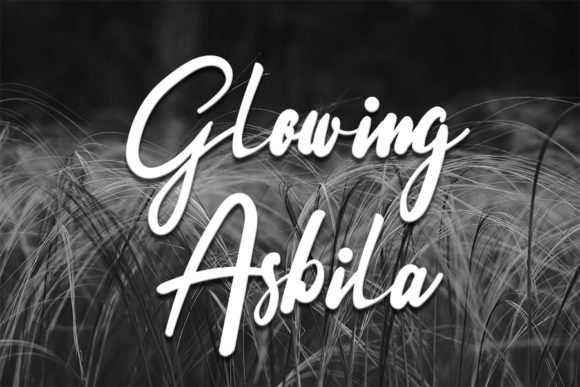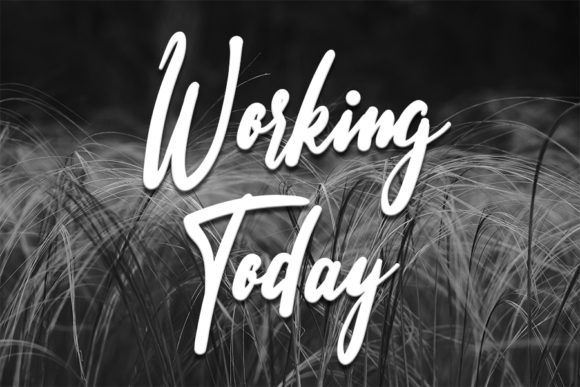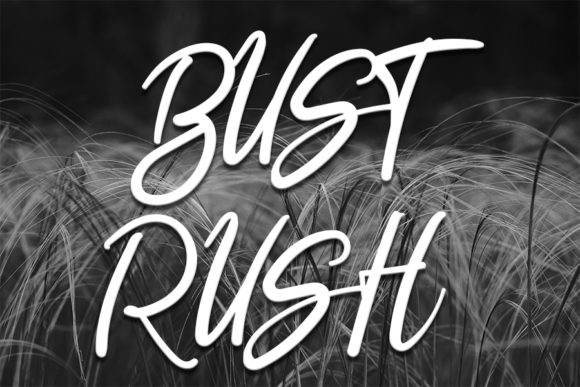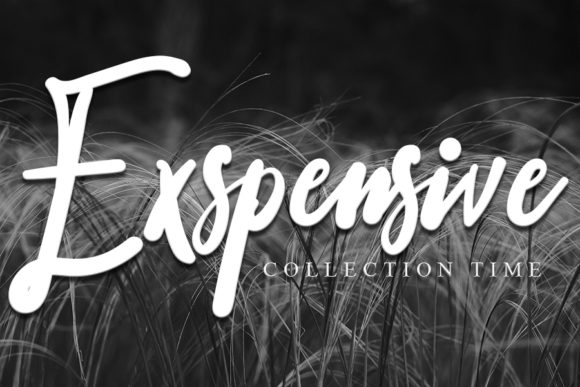
Introduction to Mode Moon Font
Have you ever been in the midst of a creative project, pouring your heart and soul into every detail, only to feel like something’s missing? The spark that drives your imagination is there, but the right design element to bring it all together is nowhere to be found? That’s where the Mode Moon Font comes in – a relaxed and flowing handwritten font that adds a touch of elegance and sophistication to your work.
This high-quality design resource is perfect for designers looking to add a personal touch to their projects. With its simple yet stylish feel, the Mode Moon Font is ideal for creating a seamless and cohesive look that’s sure to captivate your audience.
Key Features of Mode Moon Font
- Unique, high-quality design for creative projects, ideal as a design resource
- Features a transparent background, allowing for easy integration into any design
- Perfect for designers and artists working on a wide range of creative projects
- Includes multiple styles and weights, making it a versatile design resource
- Available in high-resolution, ensuring crisp and clear display on various devices
- Includes a comprehensive character set, making it suitable for a variety of languages
Honest Review: Mode Moon Font
I recently stumbled upon the Mode Moon Font while searching for a unique design resource for a creative project. The first thing that caught my eye was the sleek and modern aesthetic of the font. I was excited to see if it would live up to its promise.
- ✨ The font’s modern design makes it perfect for a wide range of creative projects, from graphic design to digital art.
- ⚠️ The font may not be suitable for projects that require a more traditional or classic look.
- ⚠️ Some users may find the font’s modern style too bold or overwhelming for certain designs.
Overall, I was impressed with the Mode Moon Font. Its unique design and high-quality features make it a valuable resource for any designer. While it may not be suitable for every project, it’s definitely worth considering for creative endeavors that call for a modern touch.
Tips for Getting the Most Out of Mode Moon Font
To get the most out of Mode Moon Font, consider the following tips:
- Use the font in conjunction with other design elements to create a cohesive look.
- Experiment with different font sizes and styles to add visual interest.
Mode Moon Font can be used in a variety of creative projects, including:
- Business cards and marketing materials.
- Personalized gifts and decorations.
Alternatives to Mode Moon Font
1. Alien Galaxy Font
The Alien Galaxy Font is a unique design resource perfect for creative projects that require a celestial and mysterious vibe. It’s a free download with a transparent background, making it easy to integrate into any design. When to use: For futuristic and sci-fi themed projects, the Alien Galaxy Font is a great alternative to Mode Moon Font.
Comparison: The Alien Galaxy Font has a more otherworldly feel compared to Mode Moon Font, which has a more dreamy and ethereal quality. The Alien Galaxy Font is ideal for projects that require a bold and futuristic look.
2. Moonlight Sans Font
The Moonlight Sans Font is a high-quality design resource that offers a more subtle and elegant alternative to Mode Moon Font. It’s perfect for creative projects that require a touch of sophistication and refinement. When to use: For projects that need a more understated yet still lunar-inspired look, the Moonlight Sans Font is a great choice.
Comparison: The Moonlight Sans Font is more refined and less whimsical compared to Mode Moon Font, making it ideal for projects that require a more mature and elegant aesthetic.